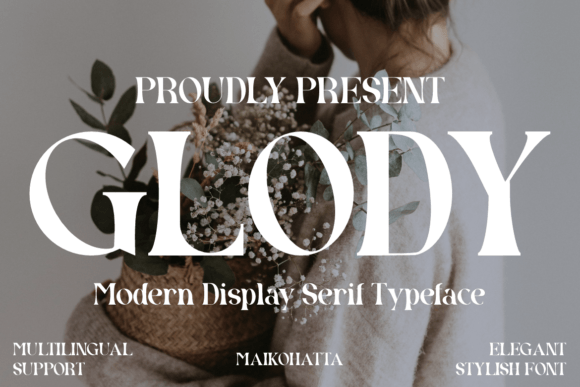
Unleash the beauty and elegance of Glody Font, a stunning display serif typeface designed to enchant and captivate. This modern masterpiece blends the allure of classic serif fonts with a contemporary twist, creating a visually impactful experience for any project. Each letterform is meticulously crafted with balanced proportions and precise alignment, ensuring a crisp and sophisticated aesthetic.
Immerse yourself in the versatility of Glody Font, a font family designed to make a statement. Whether you're crafting stunning print designs, captivating posters, or enchanting magazine layouts, Glody Font elevates your creations with its timeless appeal and unwavering charm. Let your words dance across the page with grace and poise, leaving an indelible mark on your audience.
Welcome to the world of Glody Font, a font that captures the essence of beauty and sophistication. Its sleek serifs and graceful curves add a touch of elegance to your designs, transforming them into works of art. Express your creativity with limitless possibilities, knowing that Glody Font will elevate your projects to new heights of visual appeal.